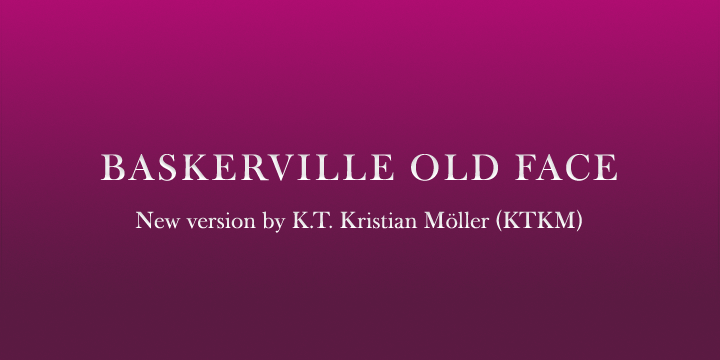
The Baskerville Old Face KTKM Font is a distinguished and timeless serif typeface, drawing inspiration from the classical elegance and exceptional readability of John Baskerville's original designs. Imagine this font gracing the pages of literary classics, adding an air of intellectual authority to academic publications, or bringing a refined, traditional aesthetic to high-end branding. Its sharp serifs, generous proportions, and open counters make it an ideal choice for editorial design, formal invitations, and any project where a sense of established heritage, sophisticated clarity, and enduring elegance are paramount. Baskerville Old Face KTKM Font is also perfectly suited for designing prestigious book covers, historical documents, and any visual content that benefits from a classic yet highly functional appearance.
What makes Baskerville Old Face KTKM Font so exciting is its remarkable ability to convey both gravitas and readability. It possesses an inherent sense of trustworthiness and sophistication that makes your message feel instantly credible and deeply considered. The meticulous design, optimized for legibility even in dense blocks of text, ensures it remains a workhorse for both display and extended body copy. This font doesn't just display information; it articulates it with an air of understated elegance and intellectual depth, making every word feel significant and well-crafted. Its timeless appeal ensures your designs will maintain a distinguished and highly readable appearance across various print and digital mediums.
The Baskerville Old Face KTKM Font family, while typically focusing on a core set of styles for its classic nature, provides essential versatility. You'll commonly find a robust Regular weight that serves as the foundation for its refined character. Given the "Old Face" designation, it emphasizes traditional forms, and often includes a meticulously designed Italic version that complements the roman with graceful curves, perfect for emphasis or stylistic variation. The "KTKM" suffix often indicates a specific digital rendition or modification, which typically means careful attention to kerning, hinting, and broad character support to ensure optimal performance in modern digital environments. These features ensure that Baskerville Old Face KTKM Font can be effectively employed for a vast array of typographic hierarchies, from subtle footnotes to commanding headlines, all while maintaining a consistent and highly adaptable visual identity. For those seeking the precise Baskerville Old Face KTKM Font Free Download, its comprehensive capabilities offer unparalleled possibilities for structured, clear, and timeless design.